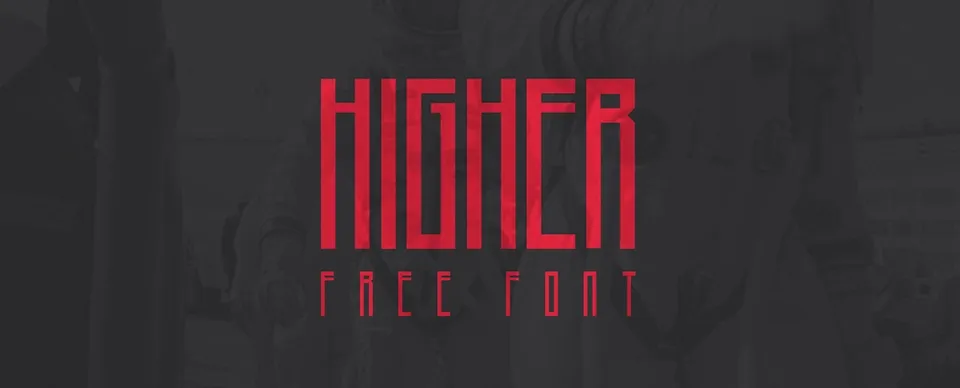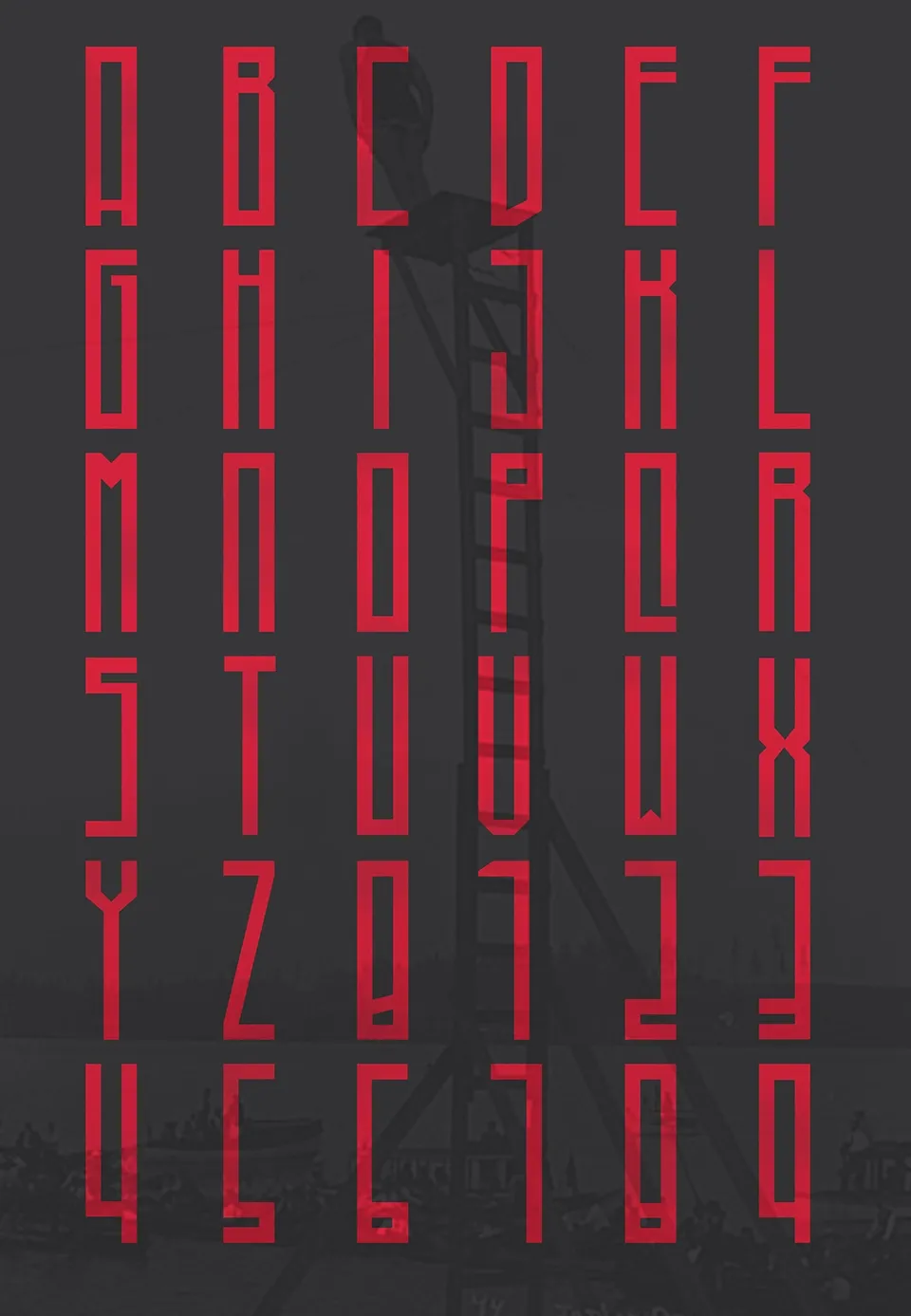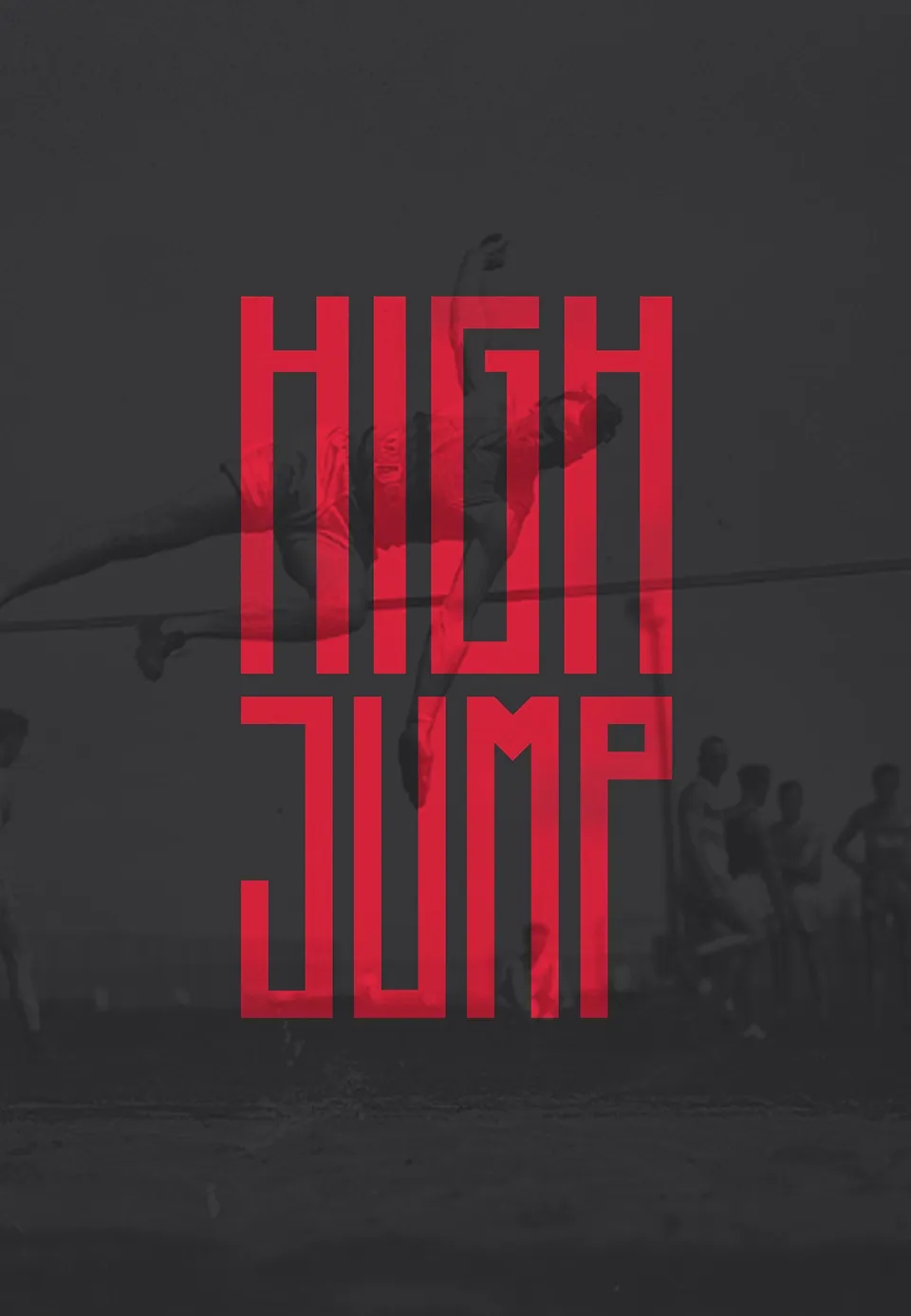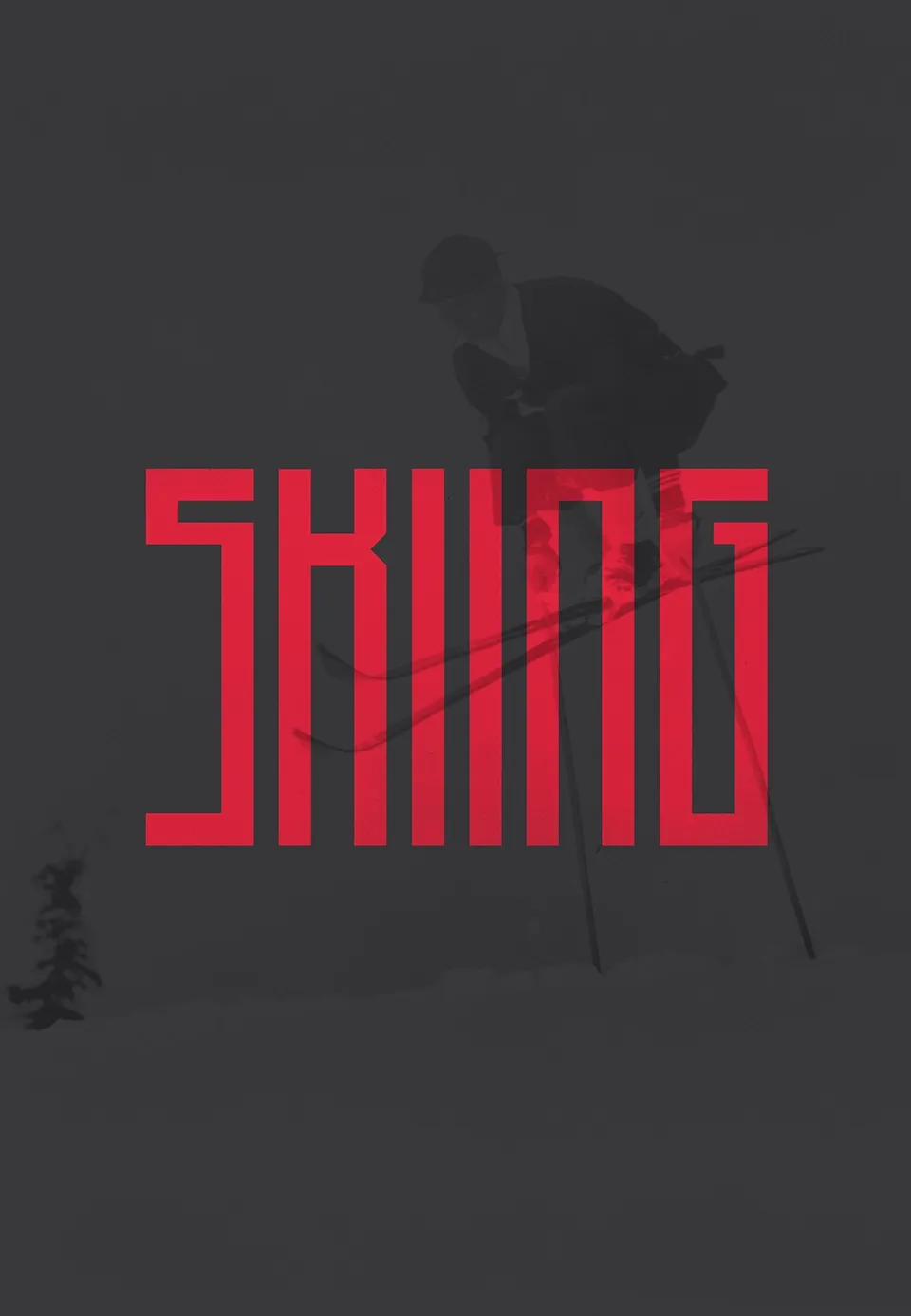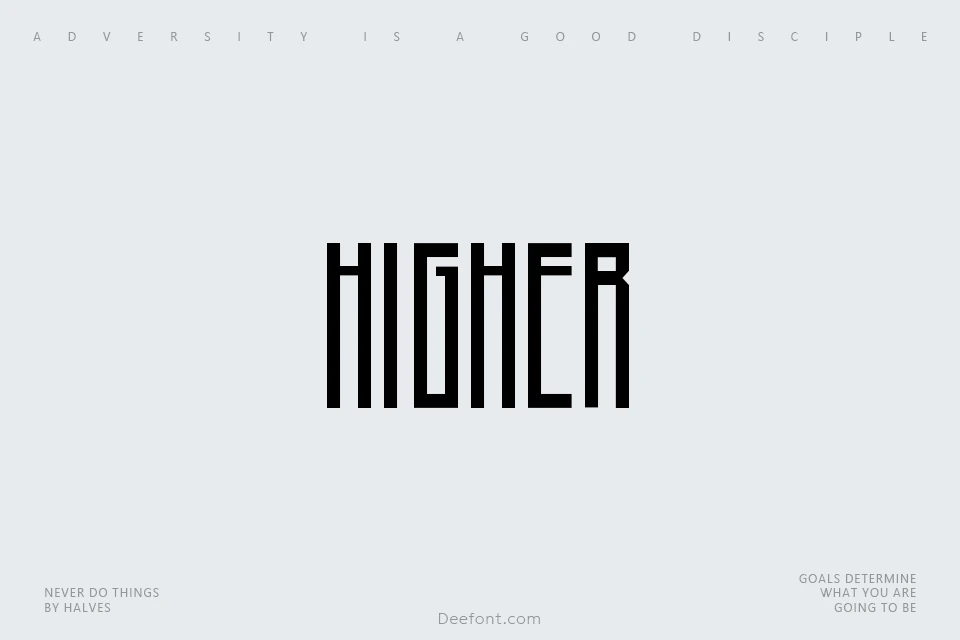
Higher Font
Higher Font is a sleek and futuristic display typeface designed to make a bold visual impact. Characterized by its tall, condensed letterforms and sharp geometric edges, this font exudes a modern and minimalist aesthetic. Perfect for posters, headlines, logos, and branding, Higher Font captures attention with its striking design and clean lines. Its unique structure conveys a sense of innovation and strength, making it ideal for projects that aim to stand out with a contemporary edge. Whether used for digital or print media, Higher Font brings sophistication and boldness to any creative endeavor, ensuring your designs leave a lasting impression.